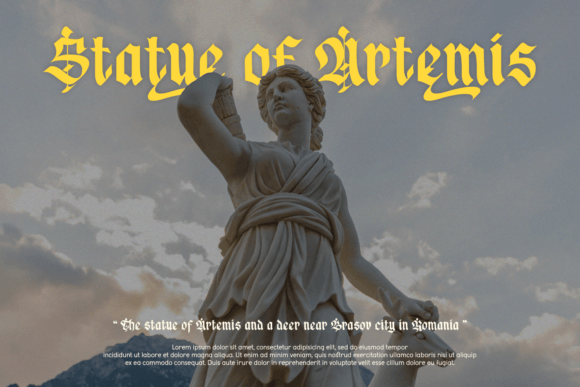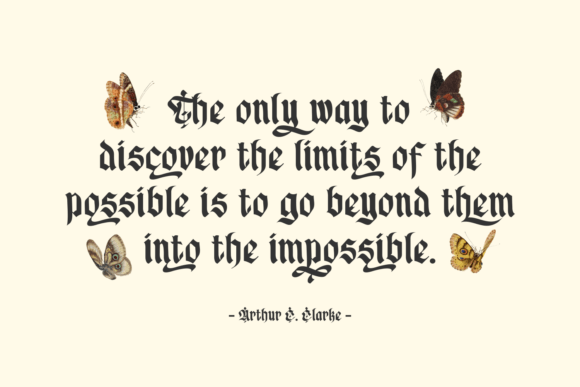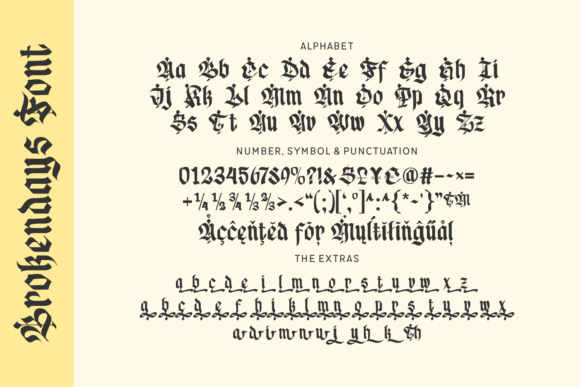
Unleashing the Power of Brokendays Font: Elevating Your Designs with a Modern Twist
Have you ever stared at a blank canvas, trying to conjure up the perfect font to capture the essence of your brand? That moment of creative paralysis is a familiar feeling for many designers. But what if you could tap into a font that effortlessly combines the strength of blackletter with the sleekness of modern design? Enter the Brokendays Font, a game-changing typeface that’s about to revolutionize your creative process.
This modern blackletter typeface is a masterclass in versatility, effortlessly blending historical roots with a bold, contemporary edge. Whether you’re crafting a logo, headline, or product packaging, the Brokendays Font is the perfect tool to elevate your designs and make them stand out in a crowded market. For designers seeking a unique and timeless look, this font is an absolute treasure trove of creative possibilities.
Key Features of Brokendays Font
- Unique Characteristics: The Brokendays Font features a distressed, vintage aesthetic with a mix of rounded and geometric shapes, giving it a unique and eye-catching look.
Brokendays Font Review
As a designer, I’m always on the lookout for unique and interesting fonts to add some personality to my projects. The Brokendays Font caught my eye with its quirky and hand-drawn feel. Here’s my honest review.
- ✨ Unique and interesting design: The Brokendays Font has a one-of-a-kind aesthetic that’s perfect for projects that need a bit of edge.
- ✨ Great for titles and headings: The font is highly legible and easy to read, making it perfect for titles and headings.
- ✨ Versatile: The Brokendays Font comes in a range of weights and styles, making it easy to find the perfect fit for your project.
- ⚠️ Limited character set: The font only includes a limited range of characters, which may not be ideal for projects that require a full set of glyphs.
- ⚠️ Not suitable for body text: While the font is great for titles and headings, it may not be the best choice for body text due to its quirky design.
The Brokendays Font is a unique and interesting addition to any designer’s toolkit. While it may have some limitations, it’s perfect for projects that need a bit of personality. If you’re looking for a font that will add some edge to your designs, the Brokendays Font is definitely worth considering.
Common Use Cases and Tips
The Brokendays font is ideal for creative projects, such as social media posts, posters, and flyers. To get the most out of this font, use it in combination with bold and italic text to create visually appealing contrasts. Experiment with different font sizes and colors to add depth and emotion to your design.